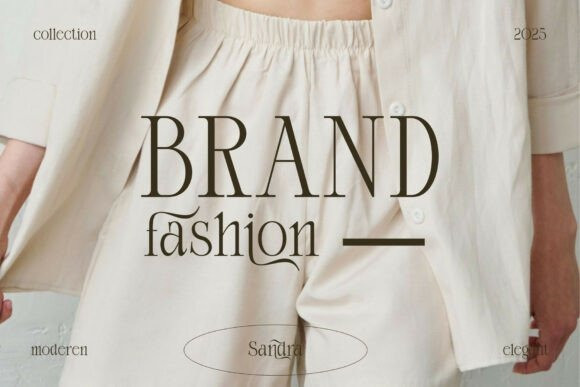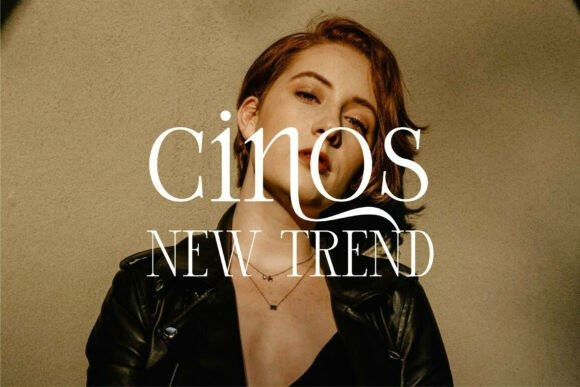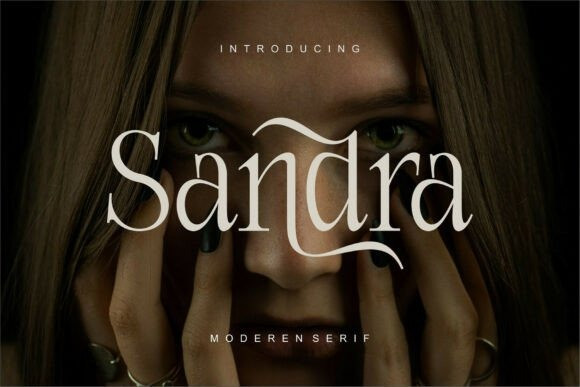
Sandra Serif Font
Sandra Serif Font is a refined modern serif font that blends timeless elegance with contemporary flair. Its signature feature lies in the graceful swashes and high-contrast strokes, most notably the dramatic curves seen in select lowercase letters like “r” and “d.” With elongated, fluid terminals and balanced proportions, Sandra captures both delicacy and strength in its structure. The serif details are sharp yet softened by minimalist geometry, making the typeface suitable for fashion, editorial, branding, and luxury product packaging. Its poetic sophistication and stylish edge bring a sense of modern romance to minimalist layouts, enhancing any design with expressive, high-end character.
This font is PUA encoded, allowing effortless access to all glyphs, swashes, and alternate characters.